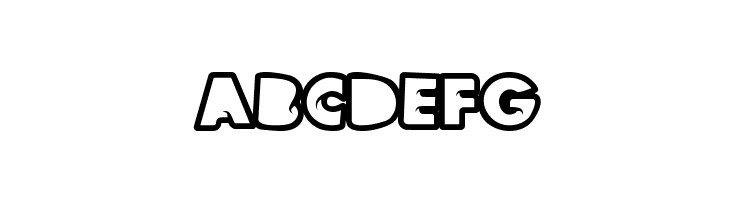
• HawtComix
A bold, playful font with thick outlines and a cartoonish style.
• Amburegul Banget
• NBA WEST
• NFC
• NHL WEST
• JD Cloverleaf Regular
• MLS WEST
• DKCarambola
• MLB NL
• Slim Extreme
A sleek, ultra-thin font with a modern, geometric design.
• Bronze Script Personal Use
• Davek Bold
A bold, angular font with a medieval, runic style.
• Davek Bold Italic
A bold, italicized font with sharp, angular edges and a futuristic look.
• Davek Italic
• Davek
A bold, angular font with a runic, tribal aesthetic and distressed texture.
• Austie Bost Arrow Mania
A diverse collection of creatively styled arrows with decorative elements.
• Barazhad Italic
A decorative, angular, and italicized font with a mystical, ancient script style.
• Barazhad Bold Italic
A bold, italicized font with sharp, angular characters and a futuristic aesthetic.
• Barazhad Bold
A bold, intricate font with an ancient, mystical appearance.
• Barazhad
A decorative, fantasy-inspired font with sharp, angular lines and intricate details.
• Shapes St
Ornamental dingbat font with geometric and floral motifs.
• Whitestone Bold
A bold, geometric font with strong, angular lines and a blocky appearance.
• Whitestone
A bold, geometric font with sharp angles and a modern industrial style.
• Whitestone Italic
A bold, italicized font with sharp angles and high contrast.